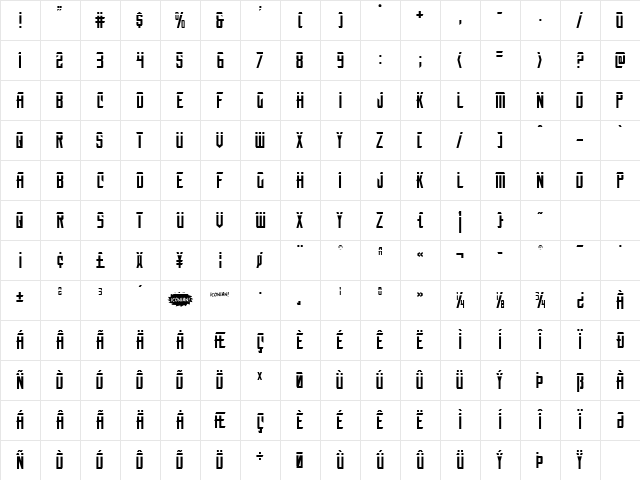
Complete Nemesis Enforcer Laser Regular glyph index. Displaying only characters natively supported by Nemesis Enforcer Laser Regular font.
Nemesis Enforcer Laser brings high-energy athletic personality to the page - its confident, muscular forms are built for impact.
Pro Tip: Use Nemesis Enforcer Laser in all-caps headlines where its athletic energy can fully express itself. Pair with a solid, simple sans for supporting text.